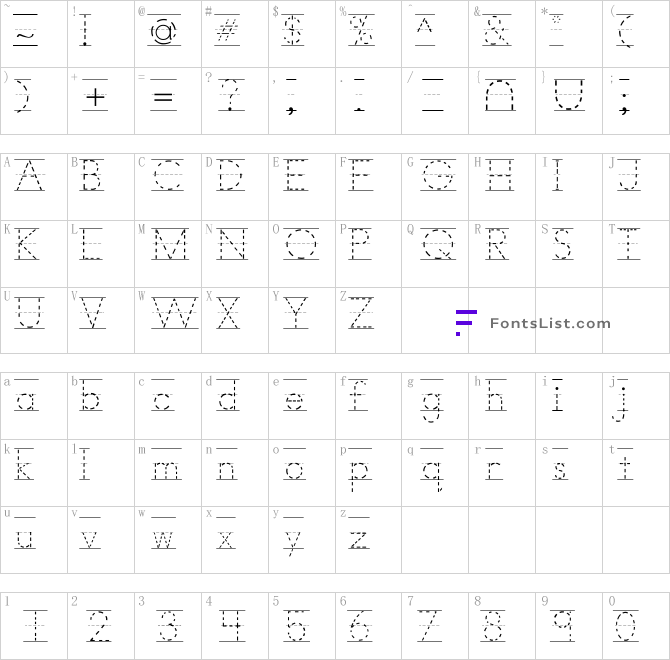
• Font Name:AbcPrintDottedLined
• Subfamily:Macromedia Fontographer 4.1.5 AbcPrintDottedLined
• Full Name:AbcPrintDottedLined
• PostScript:AbcPrintDottedLined
AbcPrintDottedLined.ttf is a very beautiful artistic font, AbcPrintDottedLined.ttf is widely used in the design and printing of various books and pictures,AbcPrintDottedLined.ttf has a strong visual impact,AbcPrintDottedLined.ttf is a commonly used font in newspapers, magazines and books, and is used in posters, e-commerce Poster design, store design, logo design, font design and other fields.AbcPrintDottedLined.